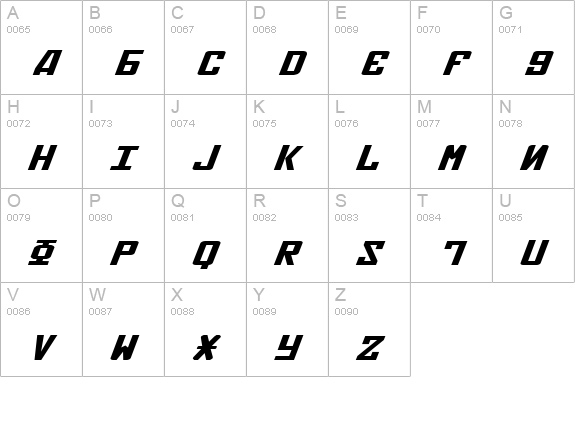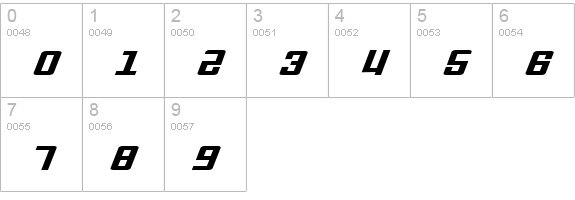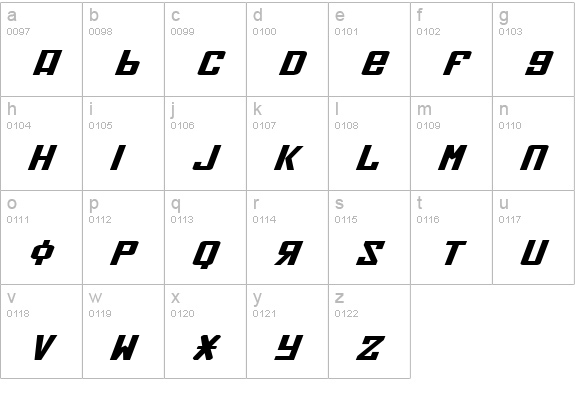
Soviet X-Expanded Italic is a distinctive, extended-width, italic variant in the Soviet typeface family \xE2\x80\x94 well suited to design and typography projects.
Introducing Soviet X-Expanded Italic, a font that exudes elegance and sophistication with its sleek and refined design. This font is the perfect choice for those seeking a touch of artistic flair in their projects, whether it be branding, advertising, or editorial design. The Soviet X-Expanded Italic font boasts a unique blend of boldness and grace, making it ideal for headlines, titles, and subheadings that demand attention. Its italicized form adds a dynamic and expressive touch, ensuring your message is conveyed with utmost impact. With its meticulously crafted curves and exquisite letterforms, Soviet X-Expanded Italic captures the essence of modernity and timelessness. Each character is intricately designed, resulting in a font that is both visually captivating and highly legible. What sets Soviet X-Expanded Italic apart is not just its stunning aesthetics, but also its accessibility. This font is freely available to download at FontsMarket.com, ensuring that designers, creatives, and enthusiasts alike can easily access and utilize it in their projects. This dedication to providing a high-quality font for free showcases our commitment to supporting the creative community. So whether you're designing a logo, creating a magazine layout, or working on a digital masterpiece, Soviet X-Expanded Italic is the perfect companion. Its versatility, elegance, and the fact that it is freely available make it a must-have in every designer's toolkit. Elevate your designs with this captivating font and let your creativity soar.